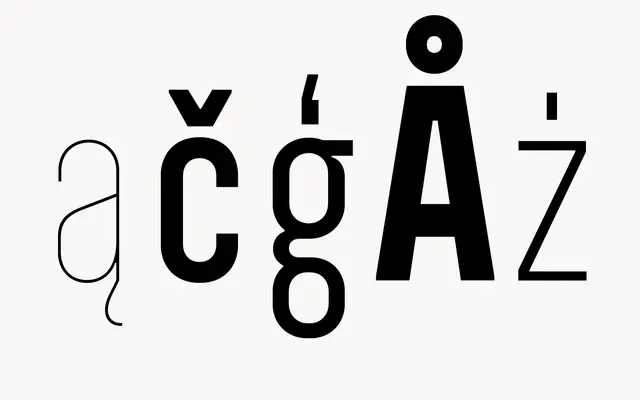
Abridge
A six-weight geometric sans with rounded terminals, useful for branding, editorial and interface work where a softer voice is wanted.
A geometric sans by atipo foundry that runs from Thin through ExtraLight, Light, Regular and Medium up to Bold. The lowercase has a humanist rhythm and rounded terminals that give it a warmer voice than a pure geometric grotesque, while the uppercase keeps a tidy circular structure. Numeric typography is well covered with pre-designed fractions, numerators, denominators, superscripts, scientific inferiors and ordinals, and Latin Extended language support reaches across European, Pacific and indigenous American languages.
A geometric sans drawn on a slightly condensed frame, with rounded terminals and a humanist rhythm in the lowercase. Sits between a workhorse text sans and a friendly display face.